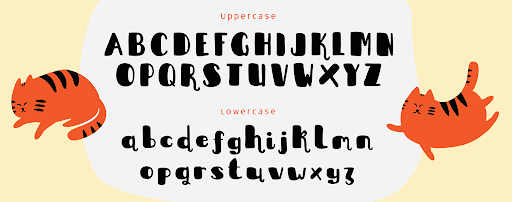
Sleepy Fat Cat Font
The Sleepy Fat Cat Font is a one-of-a-kind collection of quirky characters that many designers have been incorporating into their own designs.
It’s miles much like bungee font family and their adorable font. These fonts are best for branding tasks for producers that want to stand out and be perceived as genuine and bold.
Style Of Sleepy Fat Cat Font Free